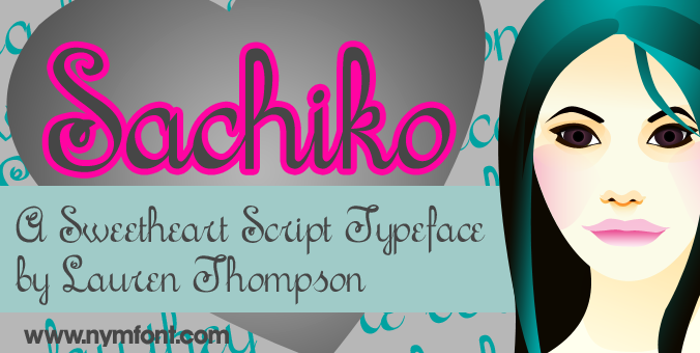
Sachiko Font
This is a great script font -- the lower case z has a lot of personality!
beautiful....amei!!!!*-*
lovee it! 😃
beautiful!!!!
gorg font
beautiful
Gorgeous Font, really beautiful. It is amazing to use on cute design things. Could you tell me what do you think about it?
Nice! I love upright scripts, well done! :)